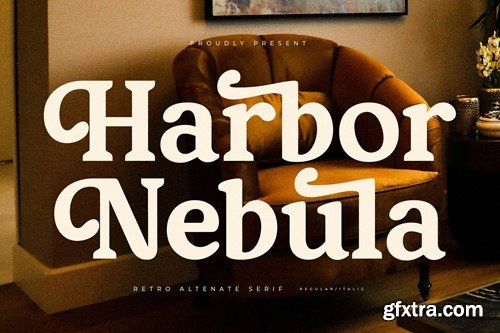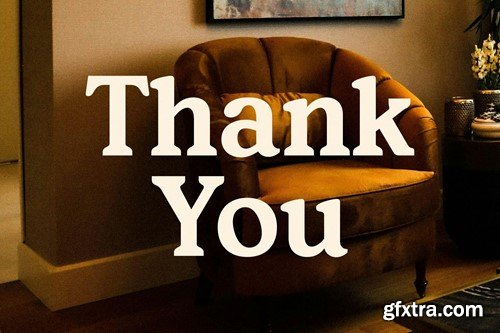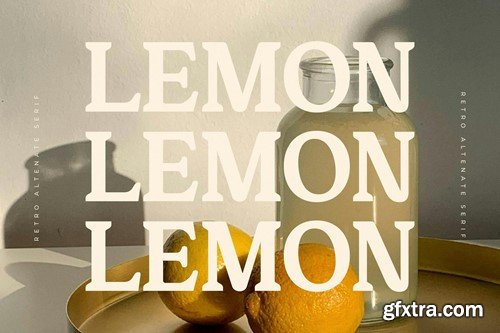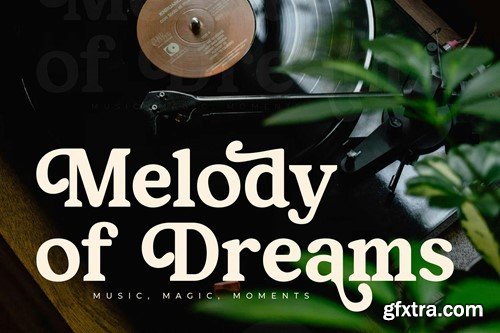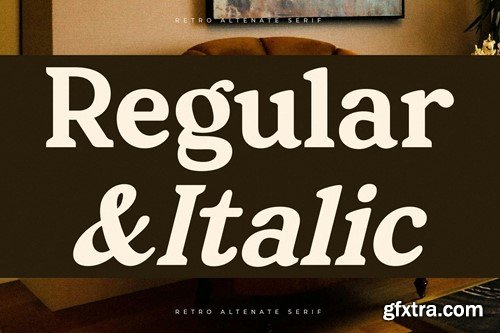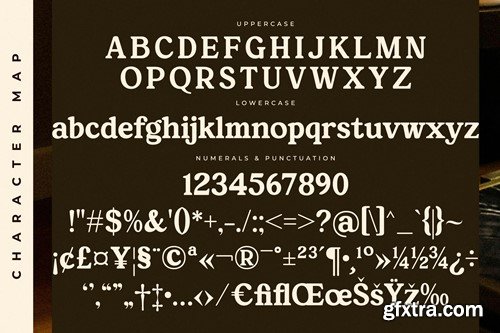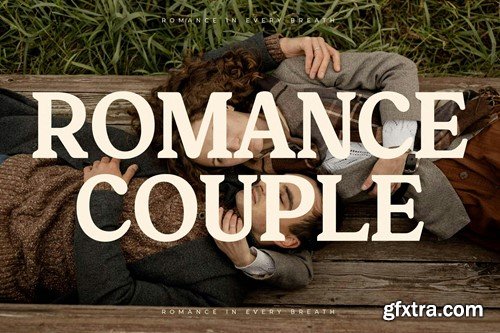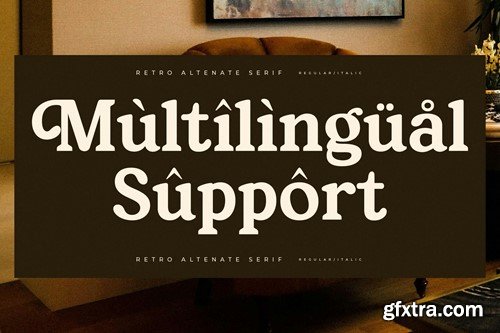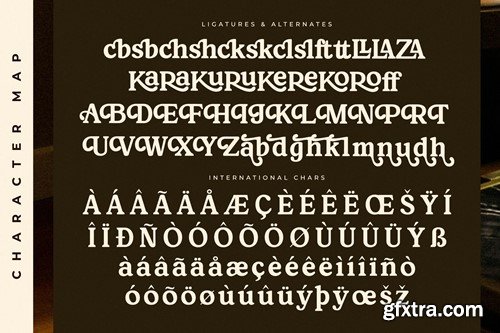
Harbor Nebula Modern Serif Font RYGEC3T
Harbor Nebula Modern Serif Font
Hi ladies & gentlemen, this is one of our fonts suitable to complement your digital and printed creative products. This font is perfect for posters, social media posts, branding, personal projects, etc.